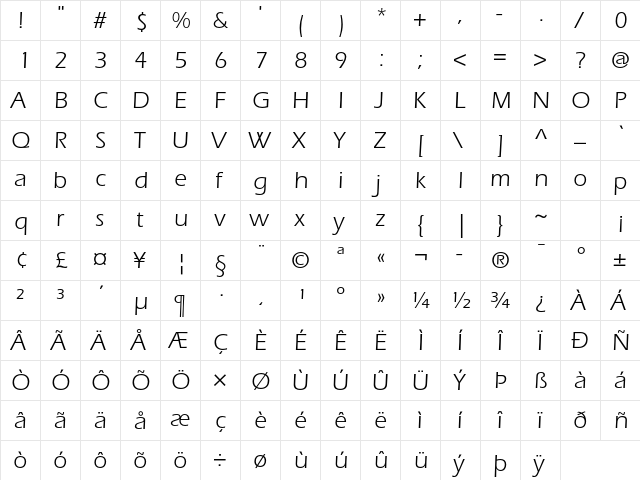
ITC Eras Std Book
| Designer | Albert Boton, Albert Hollenstein |
Design Context for ITC Eras Std Typeface
ITC Eras Std is a composed and adaptable typeface that performs quietly and consistently across a wide range of design contexts.